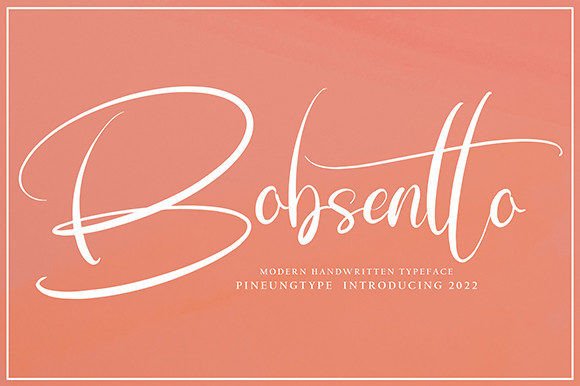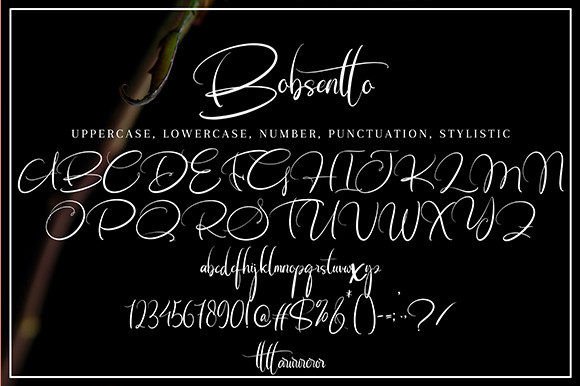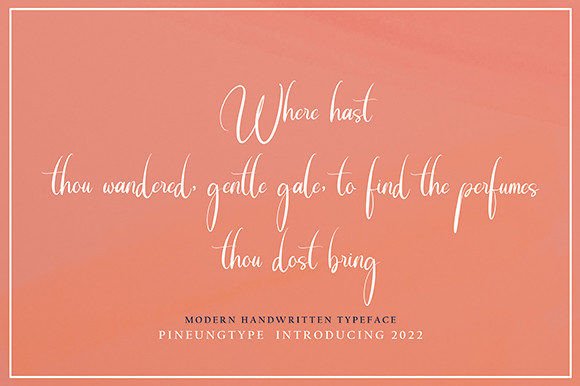
About Bobsentto Font
Bobsentto is a fresh and flowing handwritten font with a new style. It is perfect for many different projects like quotes, logos, blog headers, posters, banding, letters, invitation, stationery, etc.